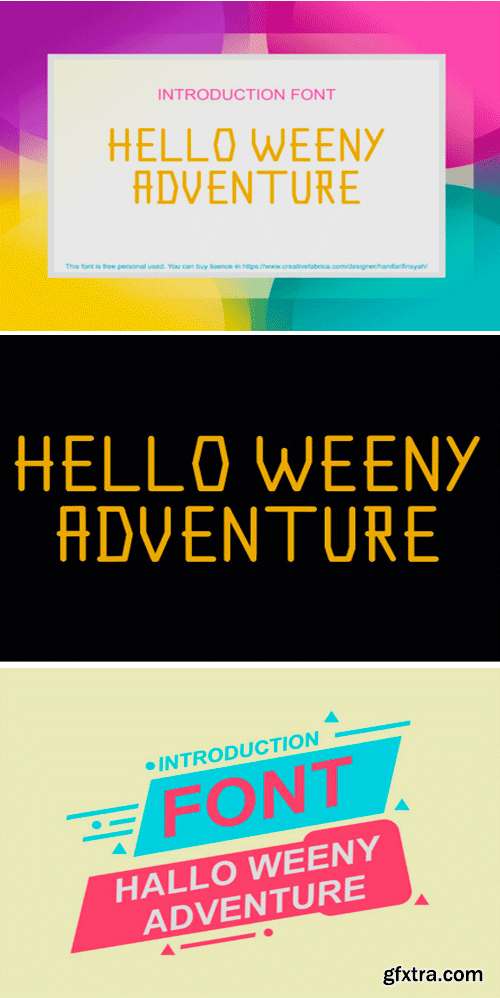
Hello Weeny Adventure Font
Hello Weeny Adventure is a stunning sans serif font with an incredibly modern feel. Get inspired by its contemporary simplicity.